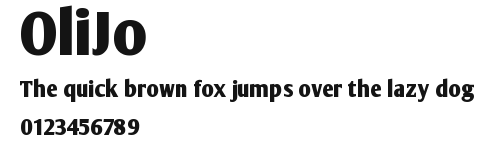
• Font Name: OliJo
About OliJo.ttf
OliJo.ttf is a modern, elegant sans-serif font designed for ultimate readability and visual harmony. Perfect for branding, headlines, web design, and print materials.